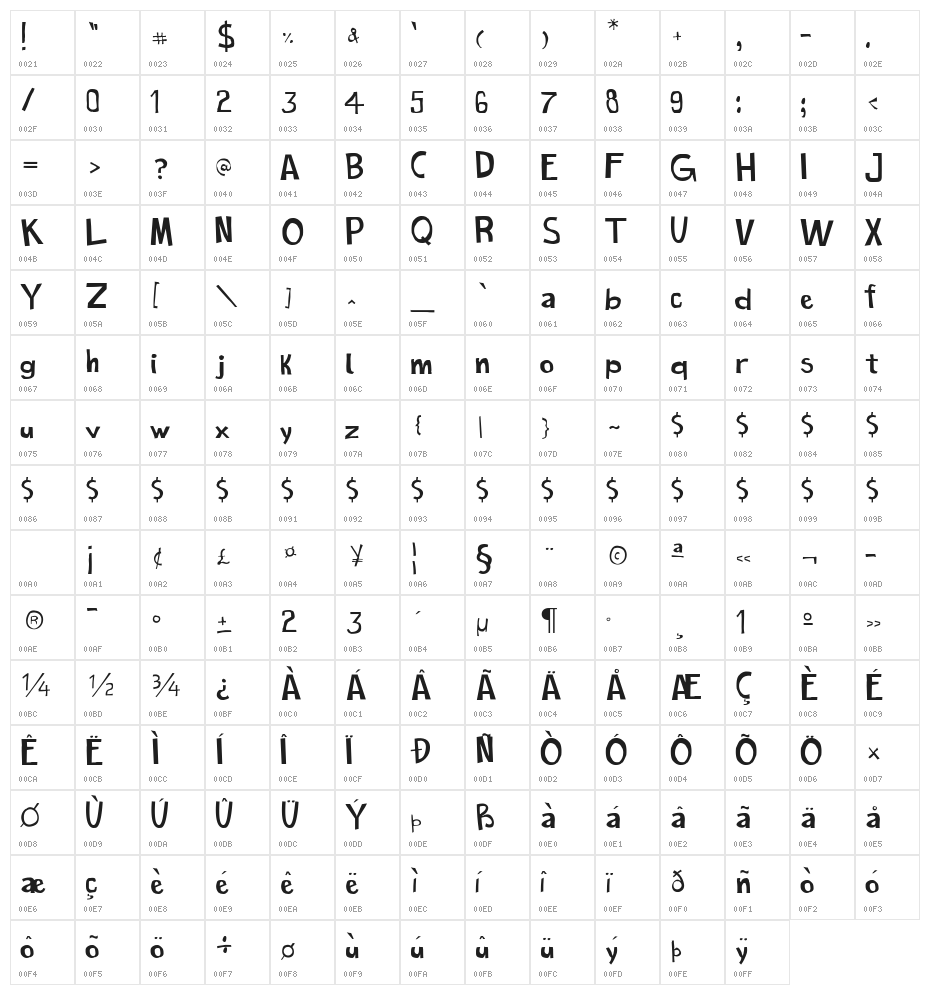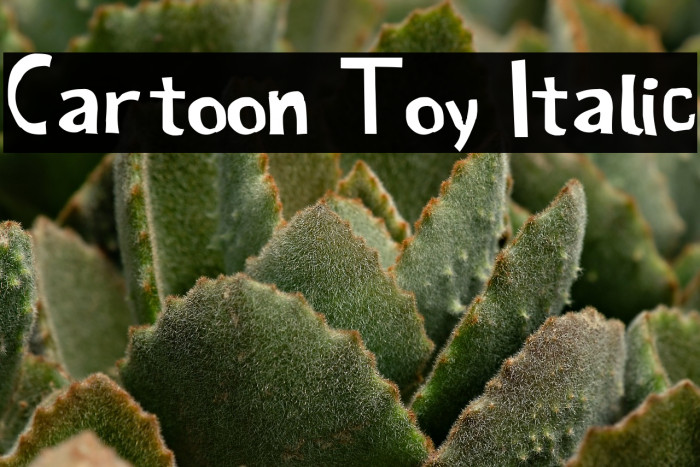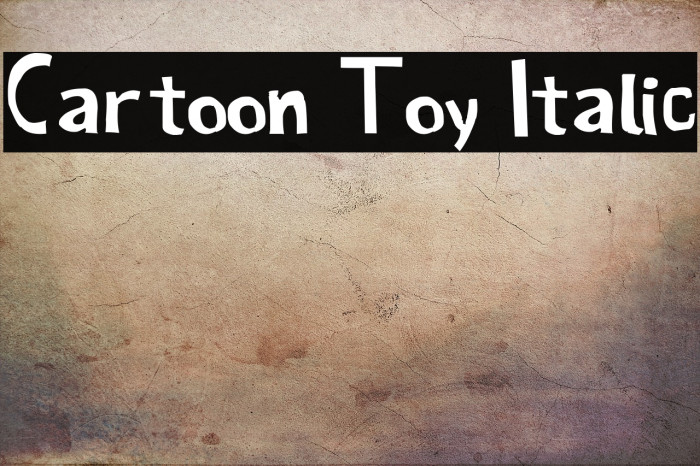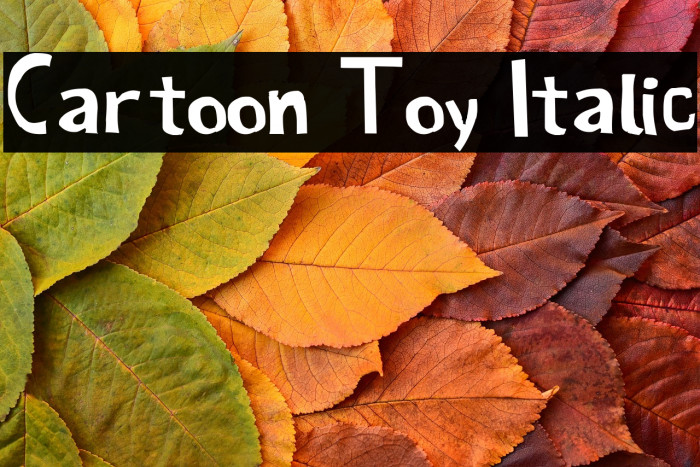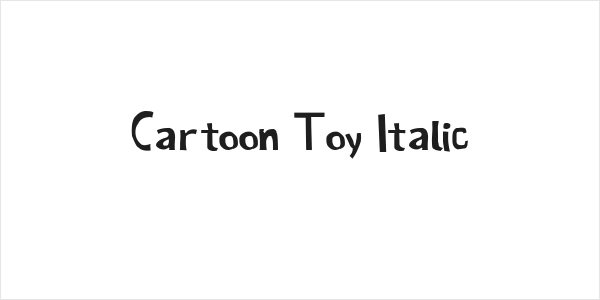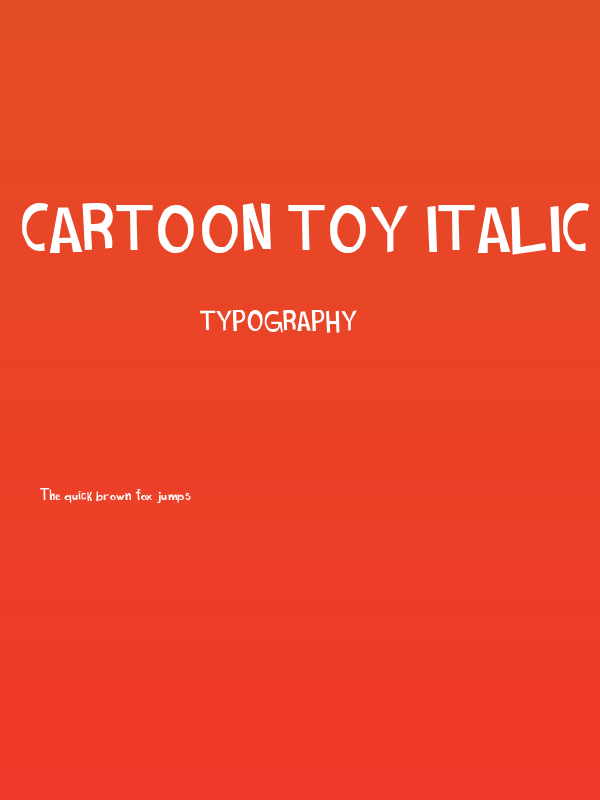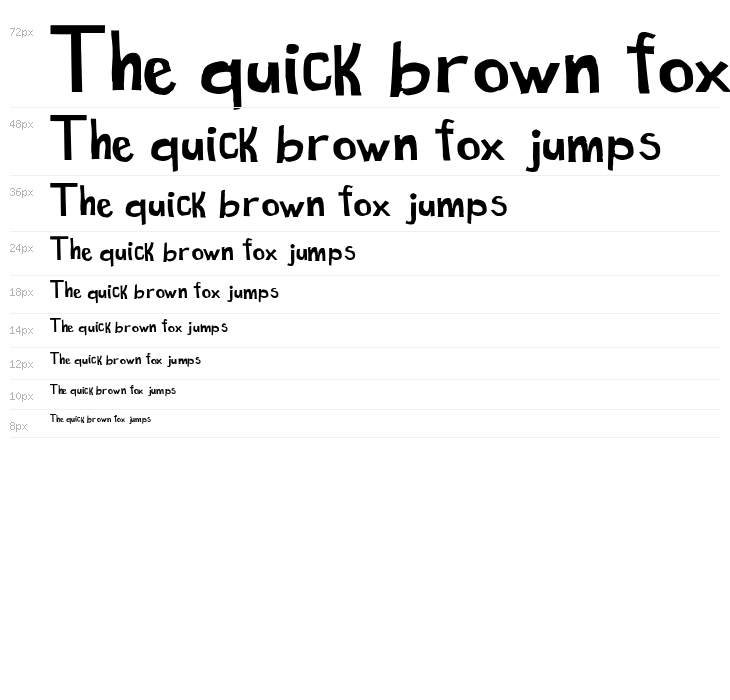
Cartoon Toy Italic Font
Cartoon Toy Italic Description
This playful and whimsical font features a hand-drawn, cartoon-like style that exudes a sense of fun and creativity. The letters are slightly irregular, with a casual, informal appearance that adds character and charm. The uppercase and lowercase letters maintain a consistent style, with rounded edges and a slight slant that gives the font an italicized look. The numbers and special characters follow the same playful design, making the font versatile for various creative projects. Its unique style makes it stand out, perfect for capturing attention and conveying a lighthearted tone.
Overall StyleWhimsical, Playful, Creative
Proposed ProjectsIdeal for children's books, comic strips, playful branding, and creative posters.